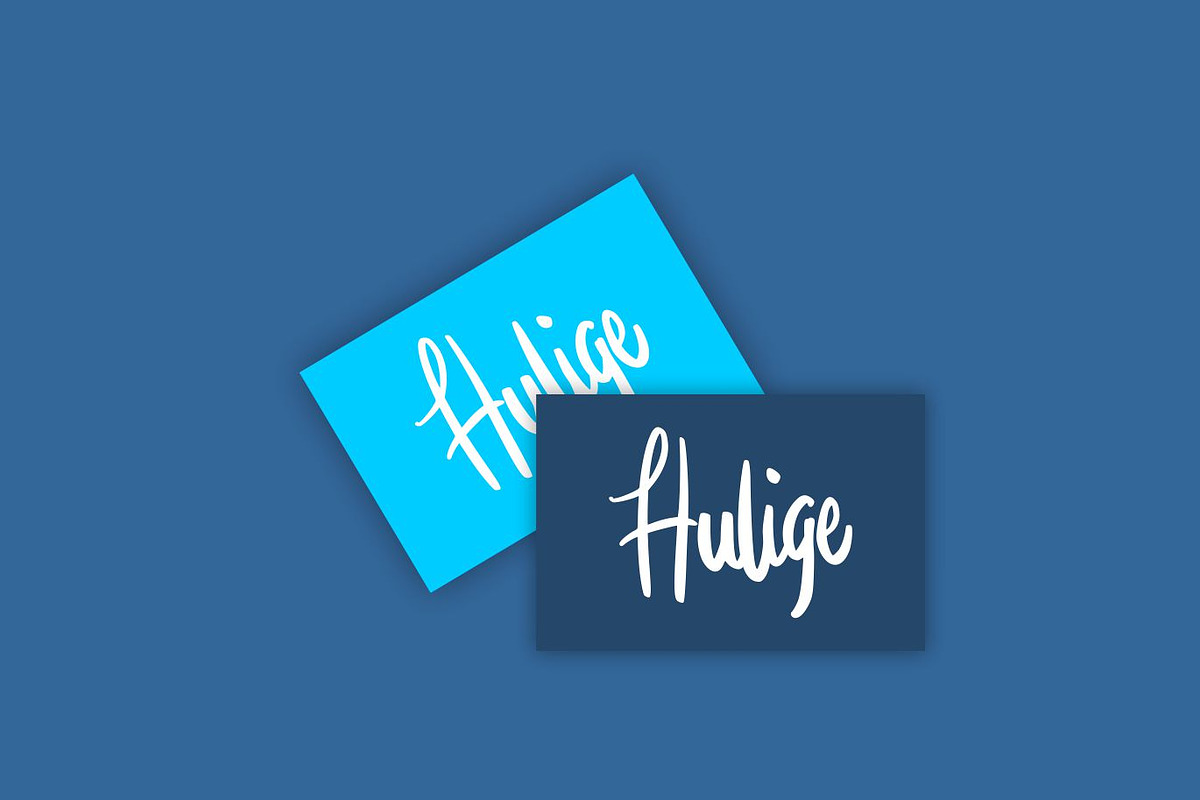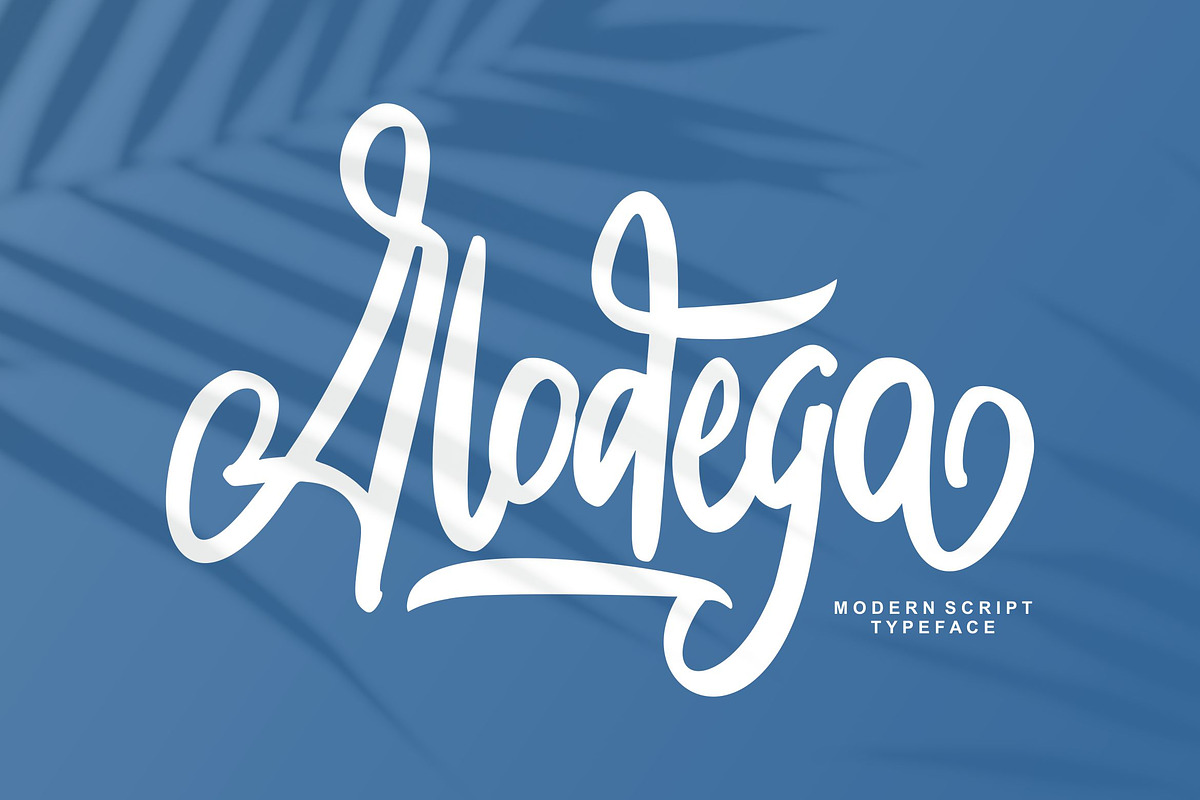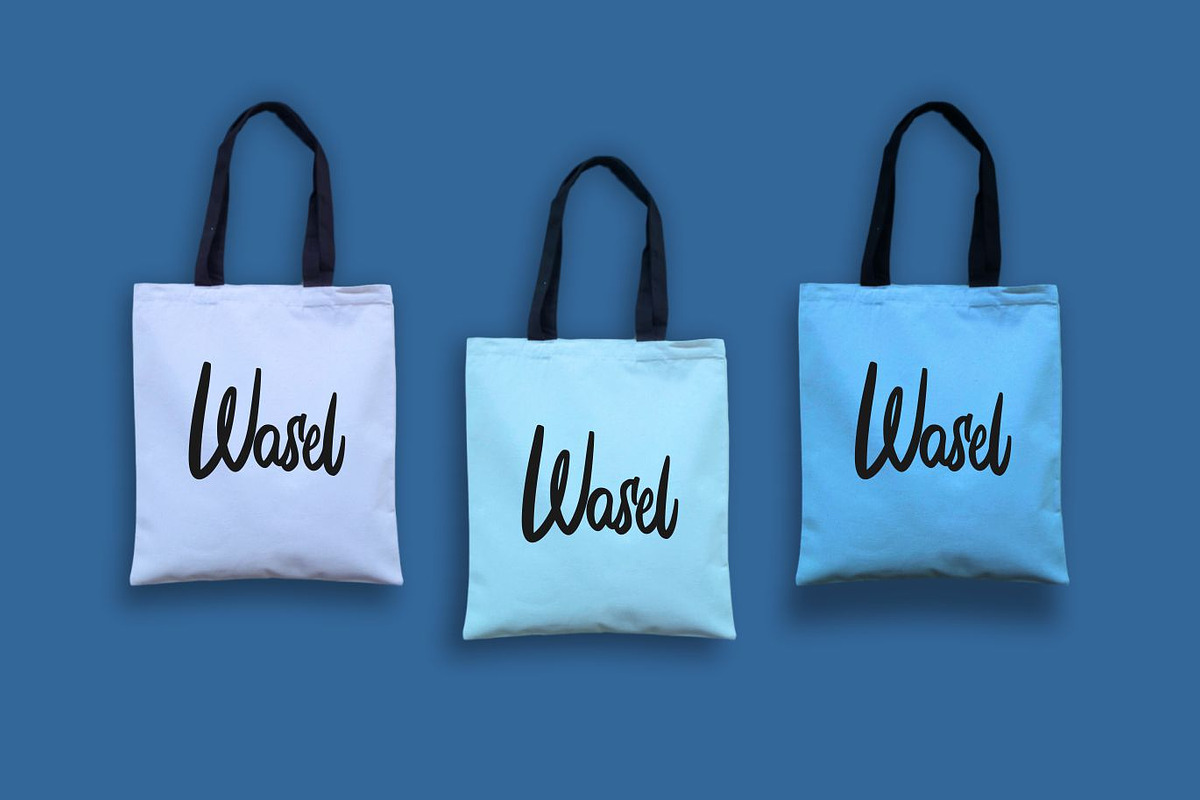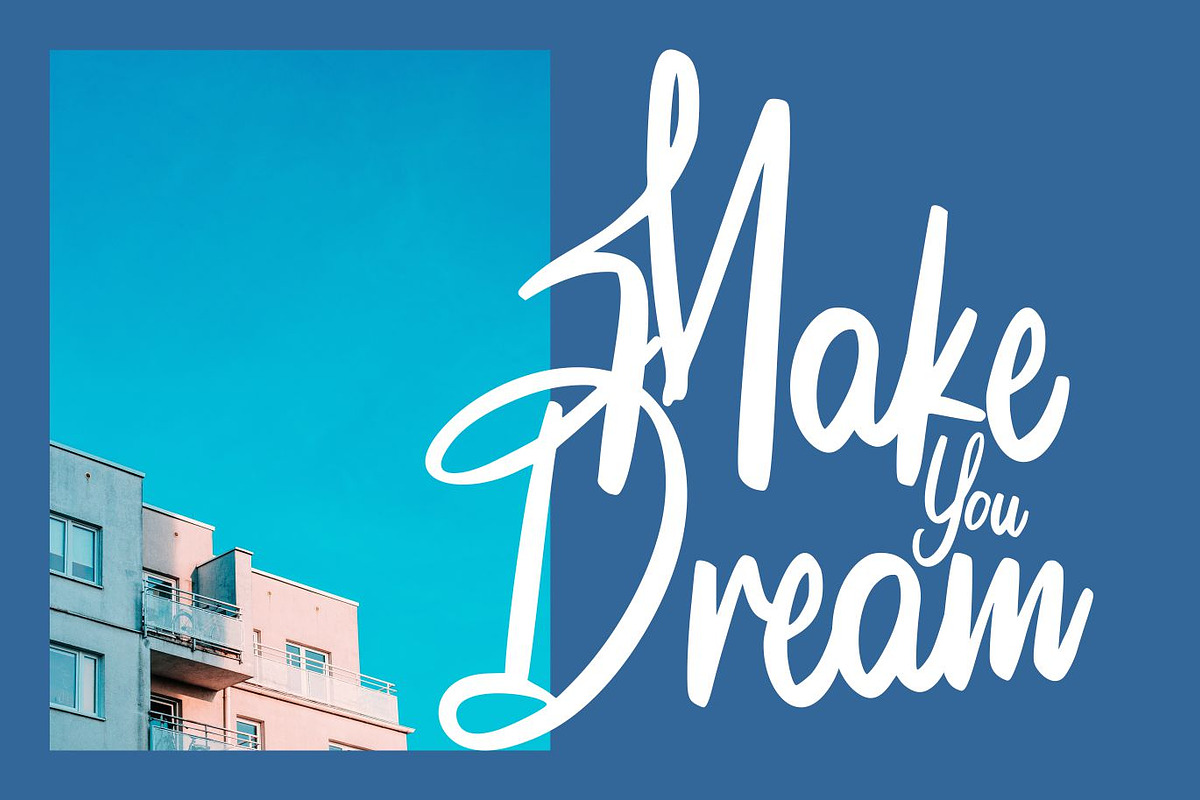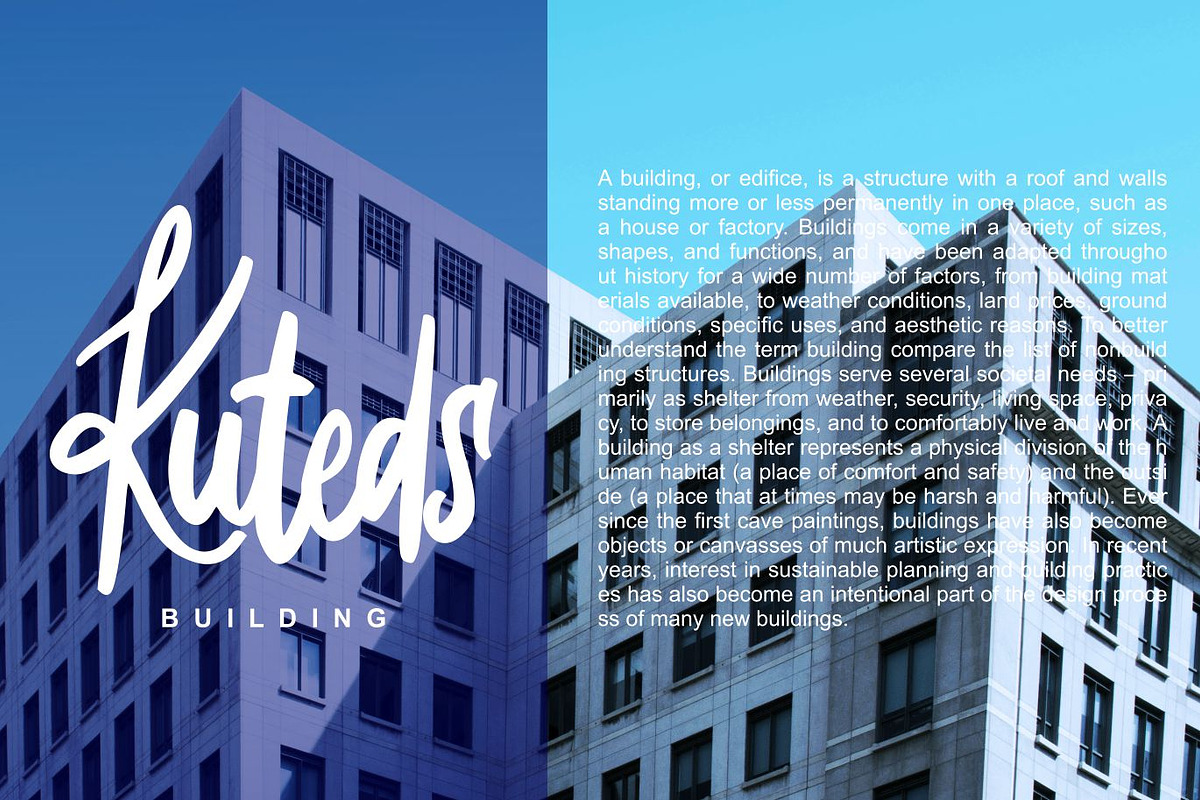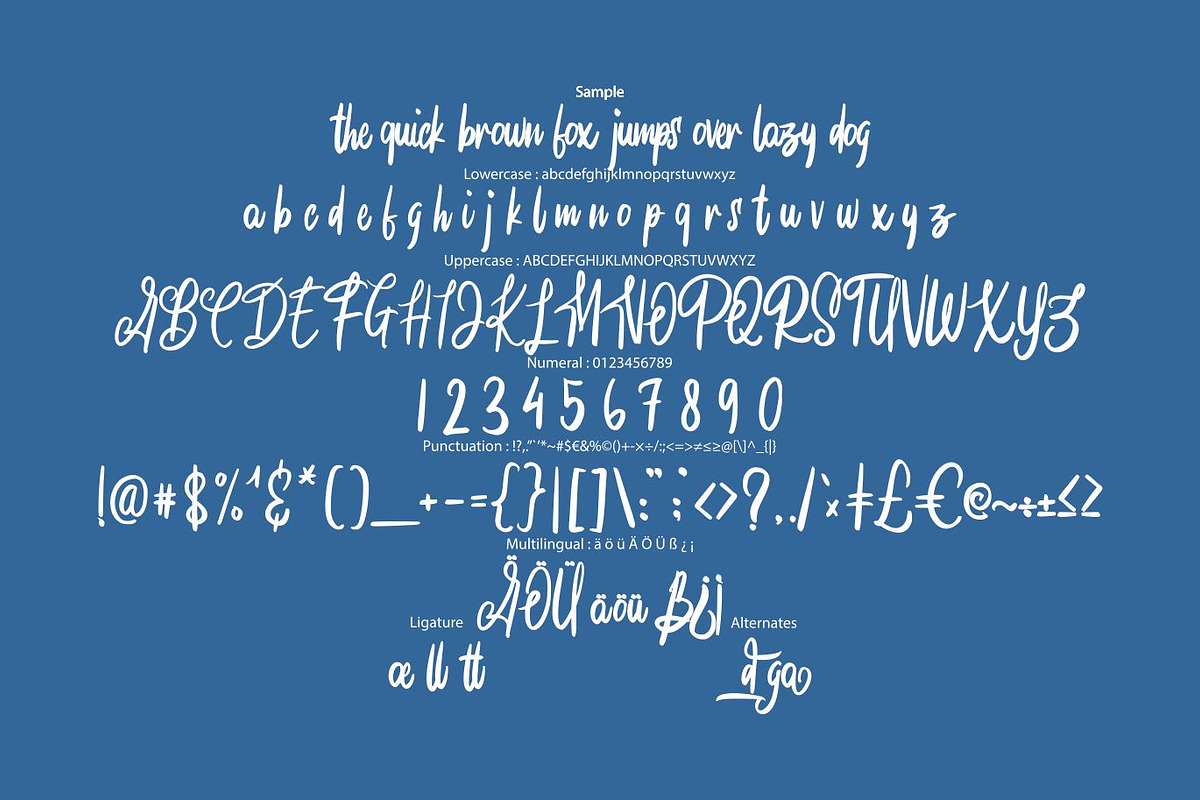
Alodega Modern Script
Alodega Modern Script - is a new font that is authentic and suitable for many of your visual needs, like for invitation, greeting cards, branding materials, business cards, quotes, posters, and more!
- special character for Alternates and Ligatures
- Fonts include Multilingual Support